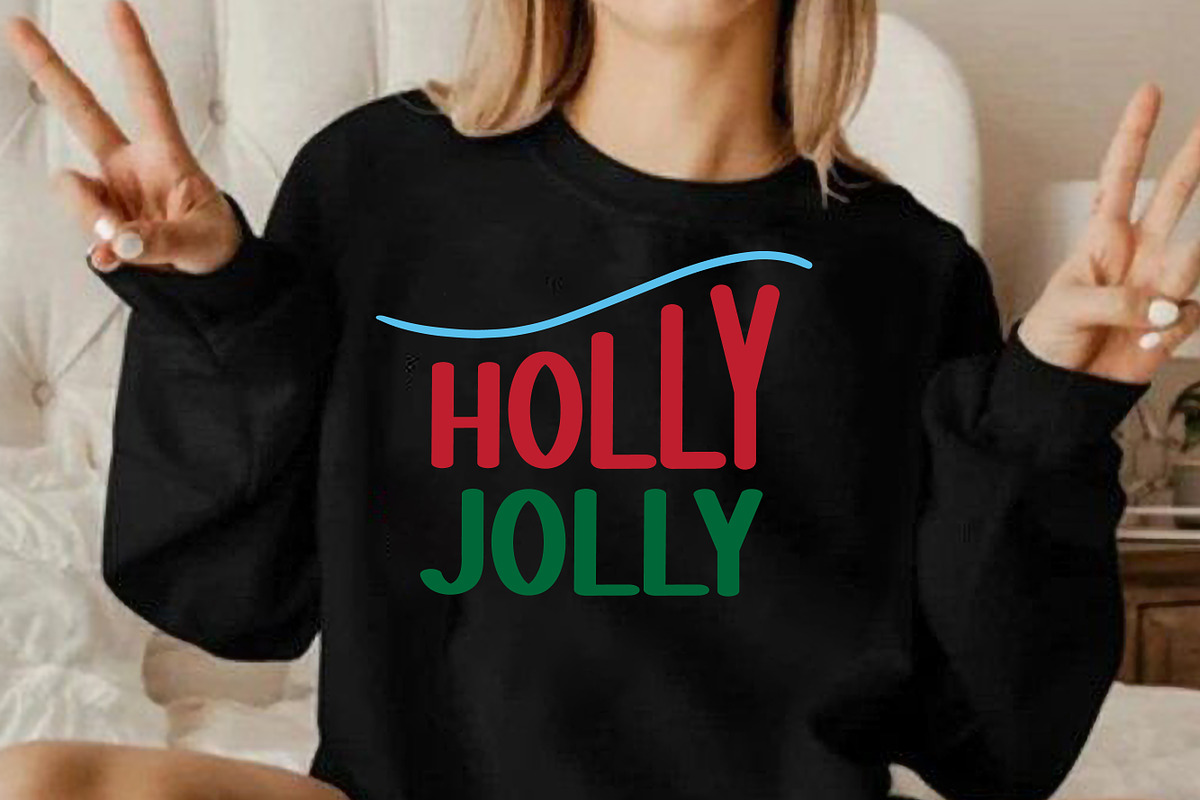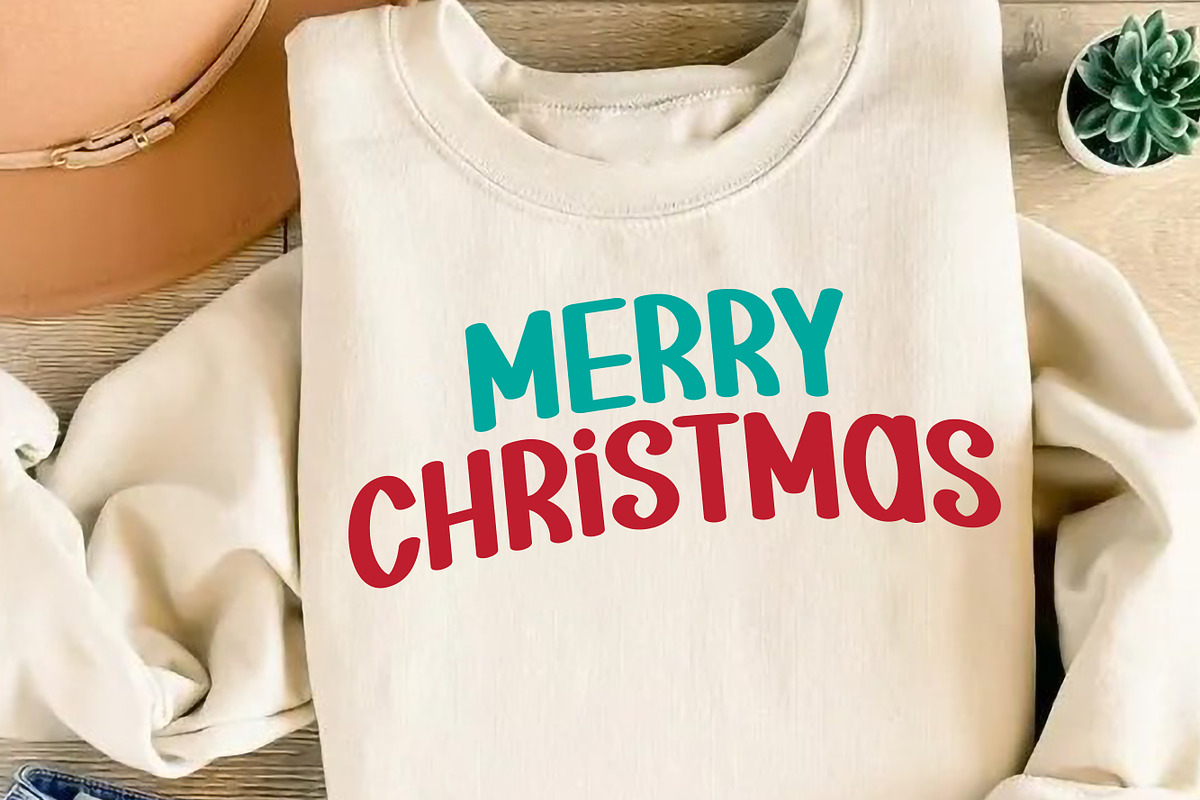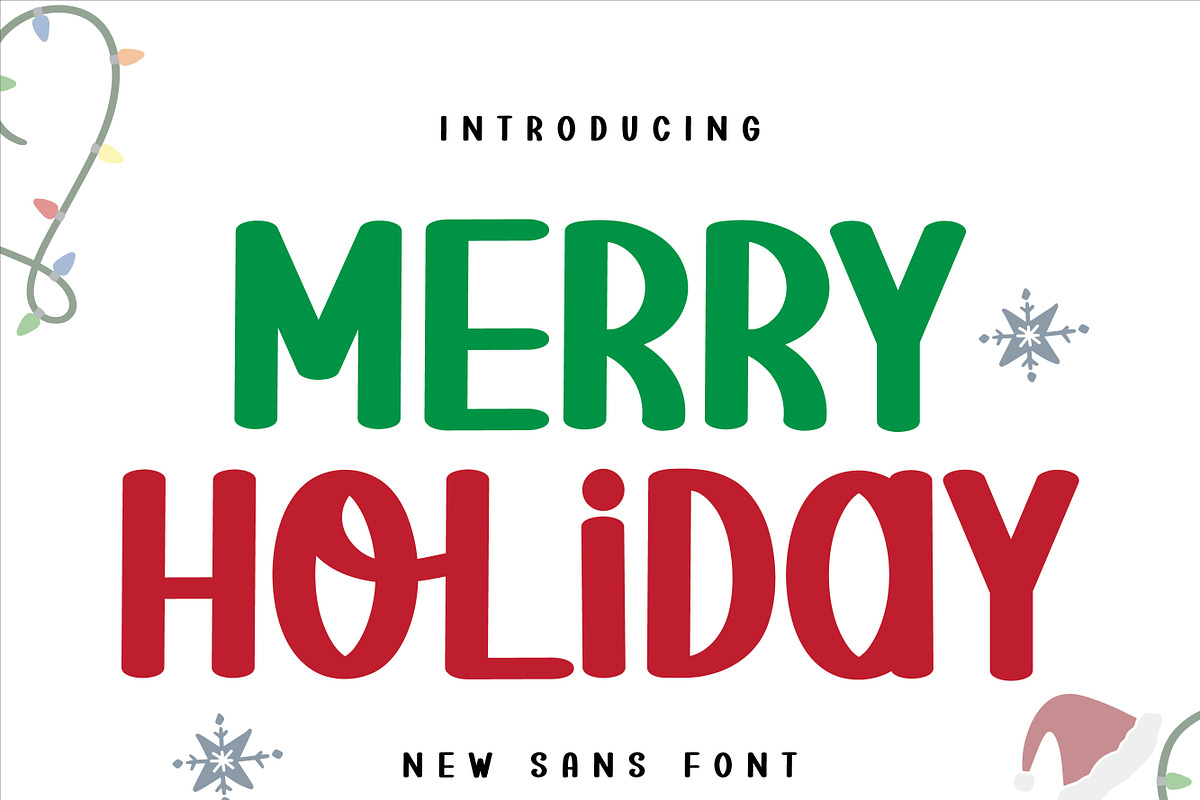
Merry Holiday - Cute Handwritten
Merry Holiday is a modern and elegant handwritten font. Perfect for greeting cards, gift tags, and holiday-themed projects, , New Year, branding, logotypes, packaging, titles, headlines and editorial design. Let your typography shine with the magic of Christmas Font for your branding.